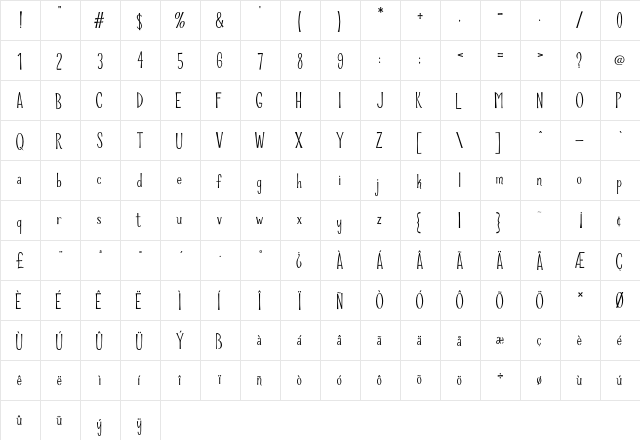
Riddle Upright
| Foundry | Mario Arturo |
| Designer | Mario Arturo |
| Copyright | Inspired by the cover of Frank Sinatra and Nelson Riddle LP "Only the Lonely". When I was creating the Uppercases for the script version, a series of non-script letters kept popping up in my head. I could not help it. This font is free for non-c |
Design Context for Riddle Typeface
Riddle takes a measured approach to typography — its balanced proportions and neutral character make it a reliable workhorse for both digital and print work.